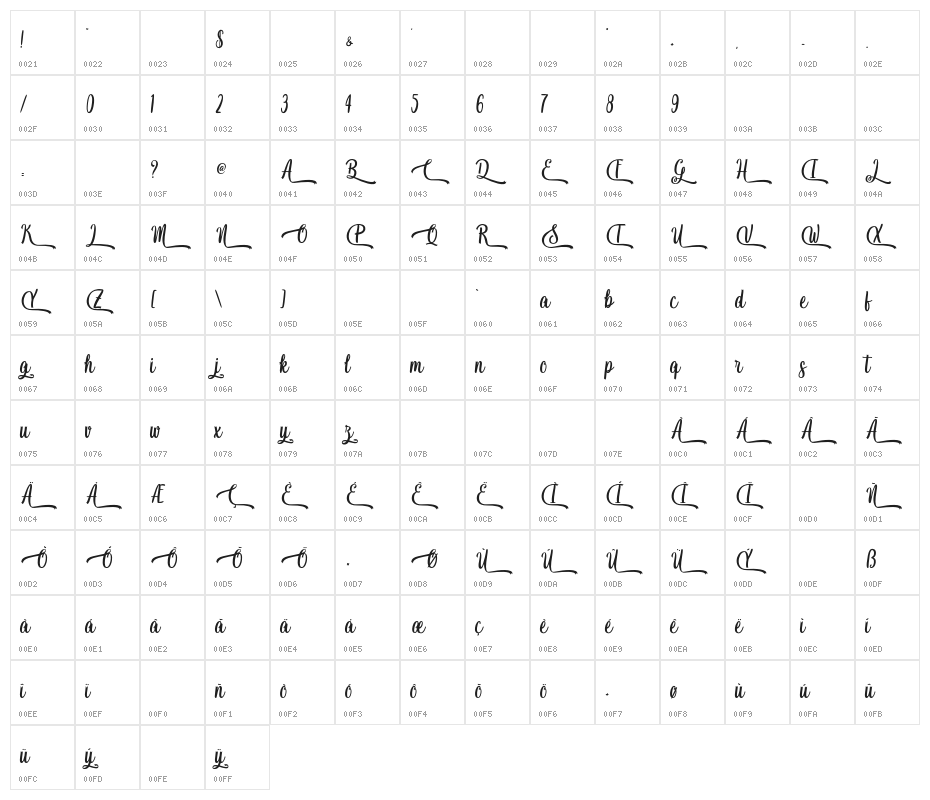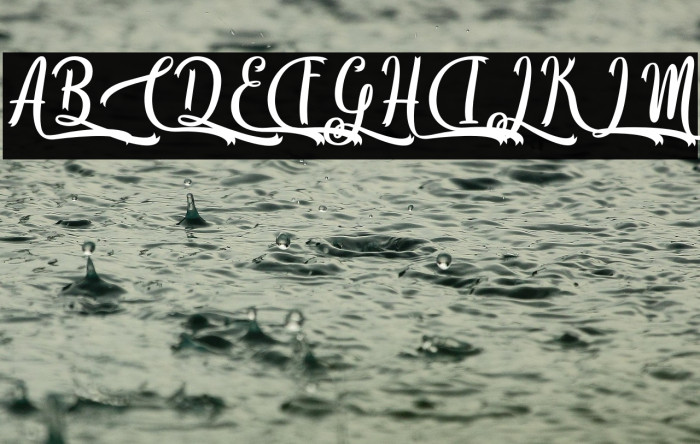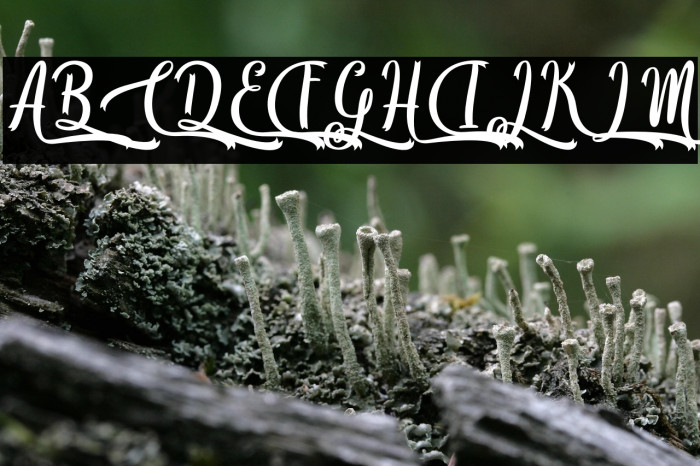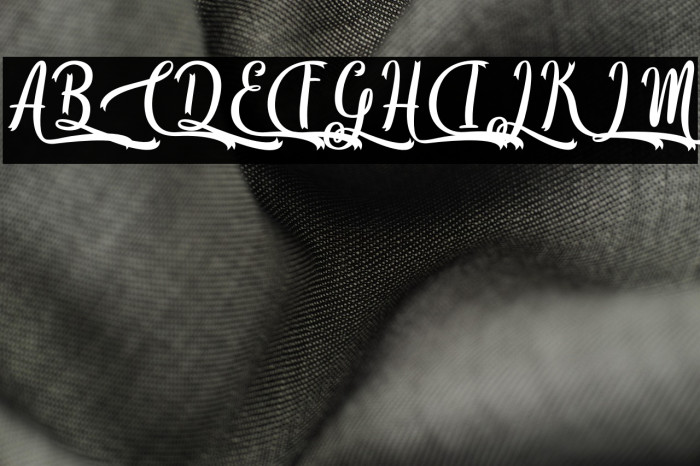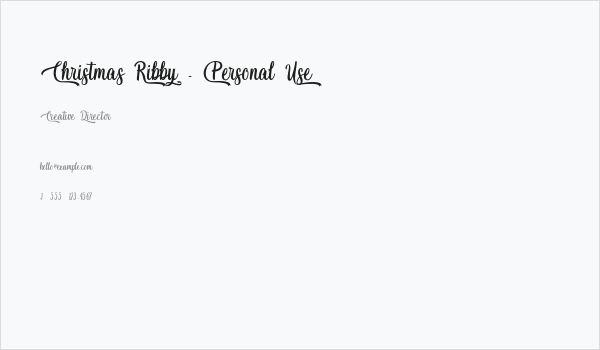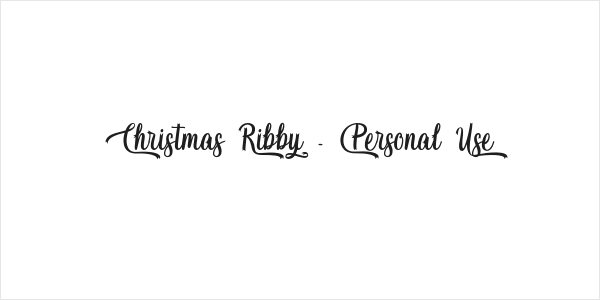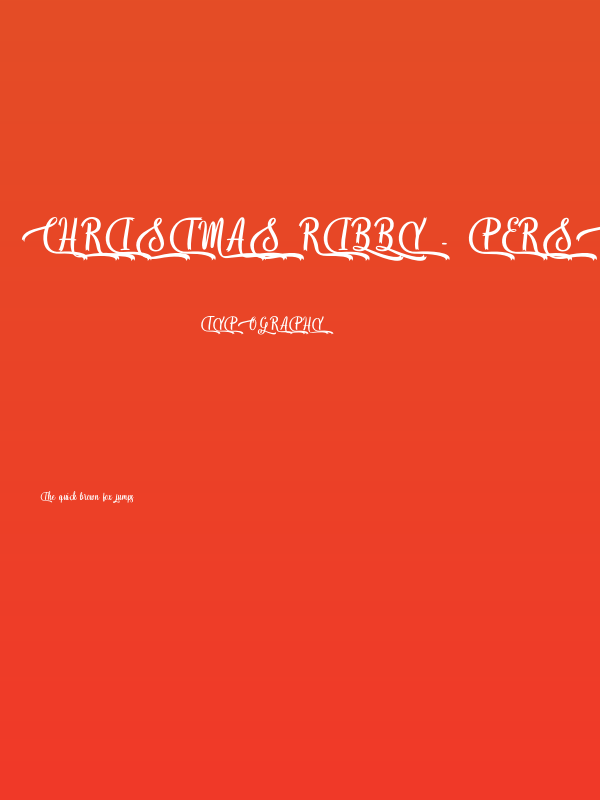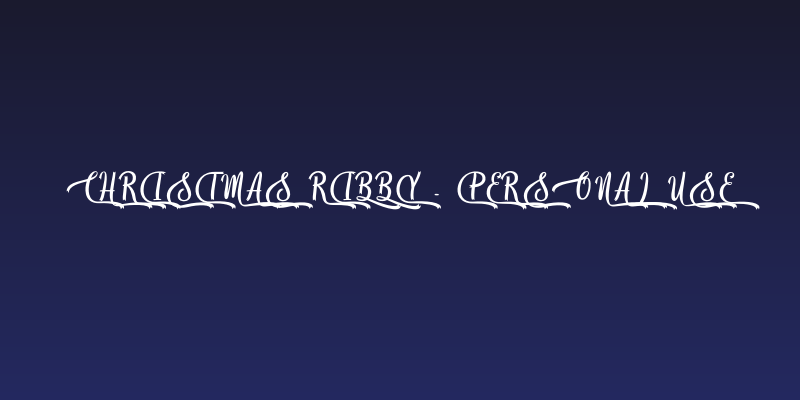
Christmas Ribby - Personal Use Font
This font features an elegant and decorative script style with intricate swirls and flourishes. The uppercase letters are particularly ornate, with extended strokes and loops that give a festive and whimsical appearance. The lowercase letters maintain a consistent flow, complementing the uppercase with a slightly more restrained design. Numbers and special characters are included, matching the overall aesthetic with similar decorative elements. The font exudes a sense of celebration and is perfect for occasions that require a touch of elegance and flair.
| Use Case | Headlines, Invitations, Decorative text |
| Proposed Projects | Ideal for holiday cards, invitations, festive branding, and decorative signage. |